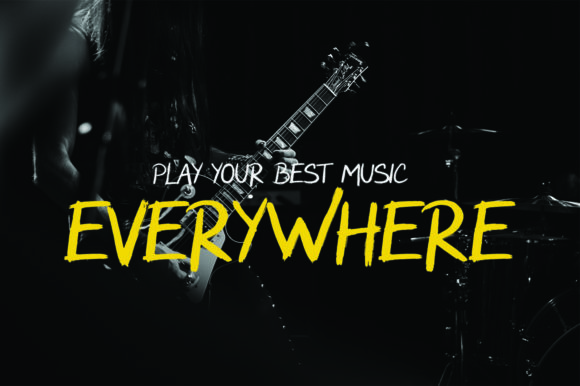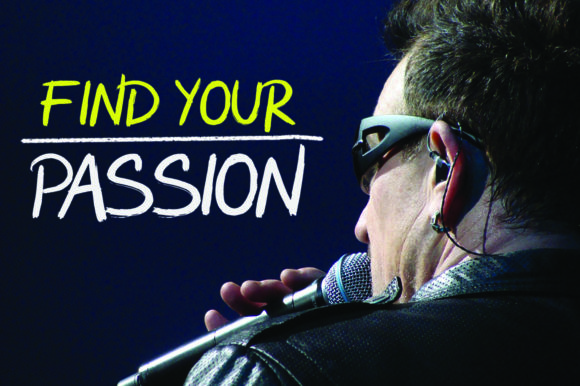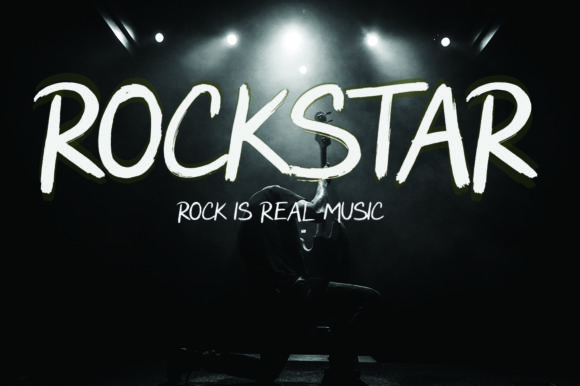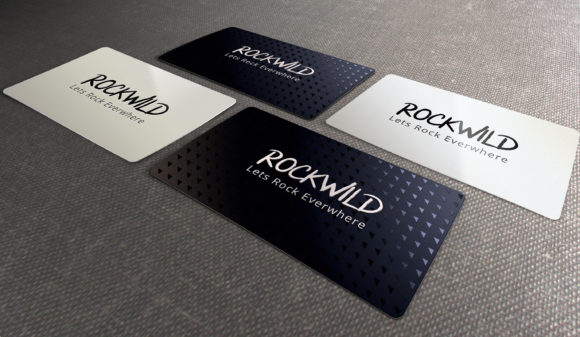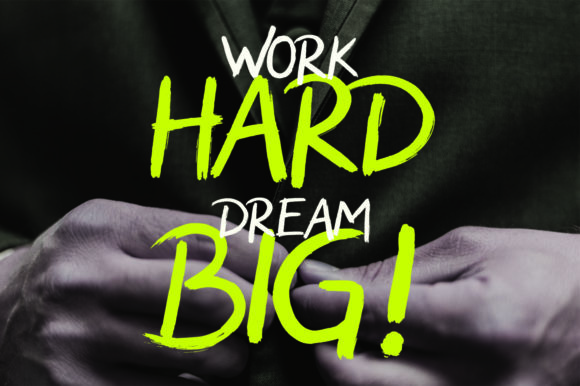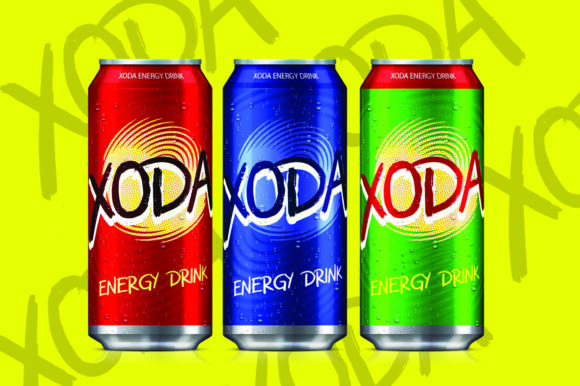
Introduction to Rockwild Font
The Rockwild is a hand-drawn brush font with rough and bold letters.
It’s great for logos, branding, print projects and any attention drawing headline .
Key Features of Rockwild Font